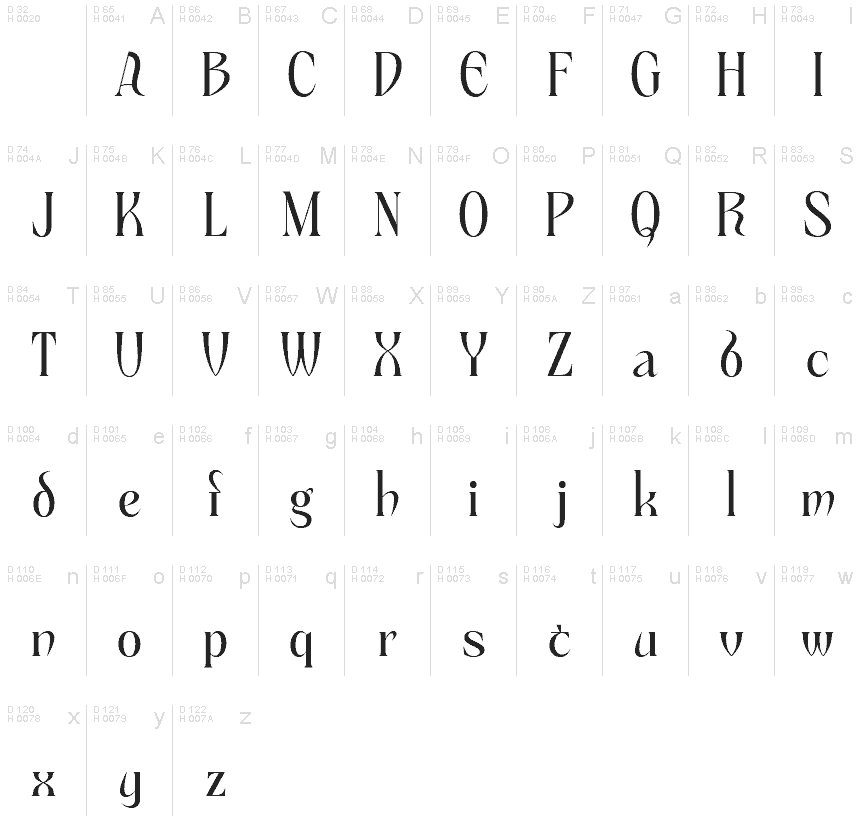
CS Nadine Regular Demo
CS Nadine font is a classic serif by Craft Supply Co. that offers the perfect balance between elegance and sophistication. The condensed font carries a refined appearance needed to deliver designs that attract viewers with a professional display. Each letter offers a distinct presentation, but one which together can easily blend into any design.
This free serif font channels an authentic vintage aesthetic, transforming editorial images or magazine/ newspaper headlines. Its inscriptions add professional appearances to CVs/resumes and business cards bringing the same touch to logotypes, signs, branding designs, stationery presentations, book cover projects, and postcards among dozens of others.